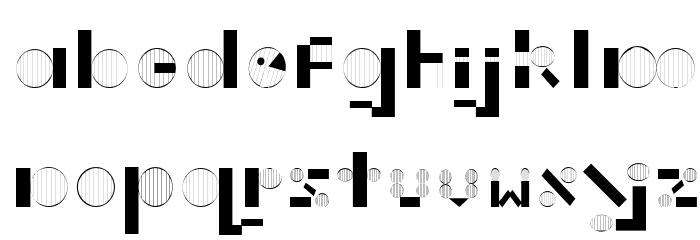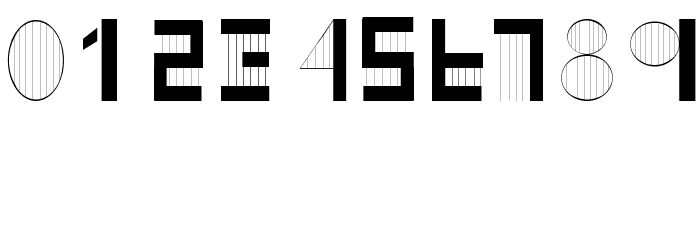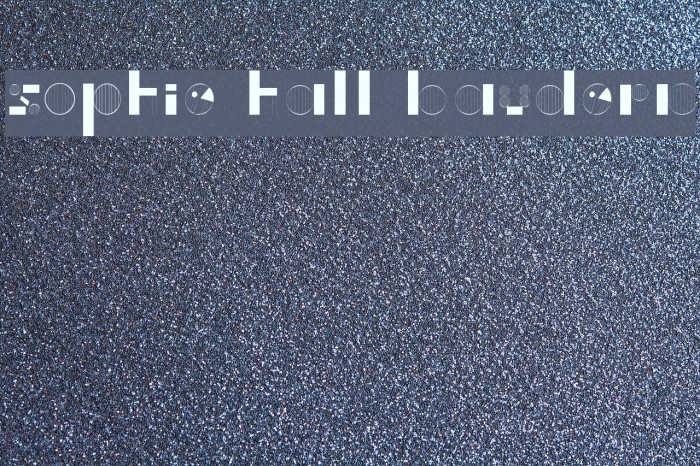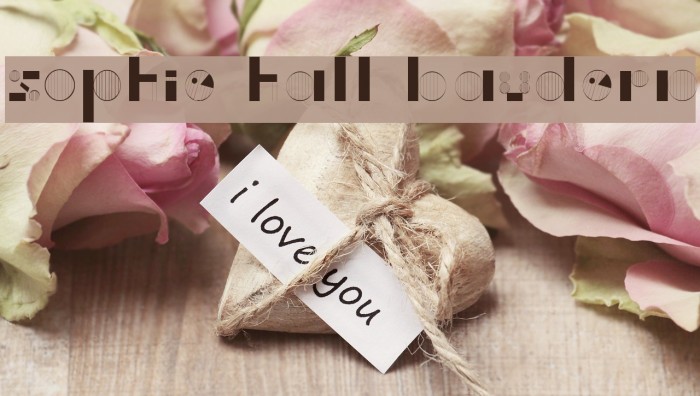
sophie hall baudern Font
This font features a unique blend of geometric shapes and bold, solid lines. Each character is crafted with a combination of filled and outlined sections, creating a striking visual contrast. The uppercase letters are particularly distinctive, with some characters incorporating diagonal lines and others using circular motifs. The lowercase letters maintain this geometric theme, offering a cohesive look across the alphabet. Numbers and special characters follow suit, with a mix of solid and outlined elements that ensure consistency throughout the font. The overall design is modern and artistic, making it ideal for creative projects that require a bold statement.
A modern, geometric font with bold lines and unique shapes.